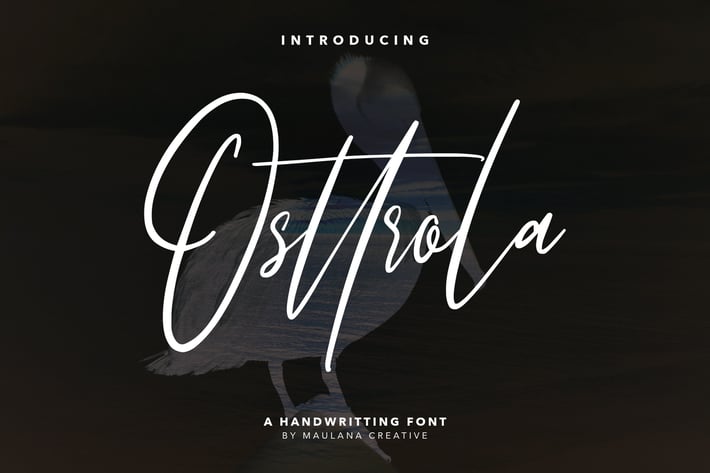
Osttrola Handwritting Font
Give your designs an authentic brush handcrafted feel. "Osttrola" is perfectly suited to signature, stationery, logo, typography quotes, magazine or book cover, website header, flyer, clothing, branding, packaging design and more.